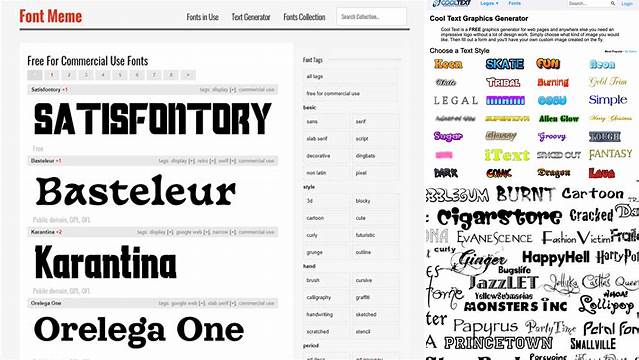
Free Font Generator: Create Cool & Unique Fonts Online
Are you looking to elevate your content with unique and stylish fonts? You've come to the right place! In today's digital world, where visual appeal is key, using the right font can make all the difference. Whether you're crafting social media posts, designing presentations, or simply want to add a personal touch to your messages, a different fonts generator can be an invaluable tool. Guys, let's dive into the world of fonts and explore how you can use a free font generator to create stunning visuals. We will walk you through everything you need to know to make your text stand out from the crowd. From understanding the basics of font selection to exploring the various features of online generators, this guide will equip you with the knowledge and resources to unleash your creativity.
Why Use a Different Fonts Generator?
In the vast ocean of online content, making your text visually appealing is crucial. A different fonts generator free is your secret weapon to achieve this. Imagine scrolling through social media β what catches your eye? It's often the content that stands out, right? Fonts play a massive role in this. A unique font can grab attention, convey emotions, and even reflect your brand's personality. Think about it, guys: a playful script font can add a touch of whimsy, while a bold, sans-serif font can project confidence and authority. A font generator empowers you to experiment with various styles, ensuring your message not only gets across but also leaves a lasting impression. The use of diverse fonts can also enhance readability. Different fonts are suitable for different contexts. For example, a clear, simple font might be best for body text, while a more decorative font can be used for headings and titles. By carefully selecting fonts, you can create a visual hierarchy that guides your reader through the content, making it easier to digest and more engaging. In short, a font generator is not just about aesthetics; it's about communication. It's about crafting a message that resonates with your audience on a visual level, making your content more memorable and impactful. So, whether you're a social media guru, a budding graphic designer, or simply someone who wants to spice up their text messages, a free font generator is a tool you can't afford to ignore. Itβs a simple yet effective way to add that extra oomph to your content and make it truly shine. Think of it as your personal font playground, where you can experiment, play, and discover the perfect font to match your unique style and message.
How to Use a Free Font Generator
Using a different fonts generator is super easy, even if you're not a tech whiz! Most online generators have a user-friendly interface that anyone can navigate. First, you'll typically find a text box where you can type or paste your message. This is where the magic begins! Once you've entered your text, the generator will display a variety of fonts that you can choose from. Some generators offer a vast selection, ranging from classic styles to funky and modern designs. You can usually scroll through the options and see your text rendered in real-time in each font. This makes it incredibly convenient to compare different styles and see which one best suits your needs. Many generators also allow you to customize the font further. You might be able to adjust the size, color, and spacing, giving you even more control over the final look. Some generators even offer special effects, such as shadows or outlines, to make your text pop. Once you've found the perfect font and customized it to your liking, the next step is usually to copy the generated text. Most generators provide a simple copy-to-clipboard button, making it a breeze to transfer your stylish text to other applications. You can then paste the text into your social media posts, documents, emails, or anywhere else you want to use it. Remember, guys, the key to using a free font generator effectively is to experiment and have fun! Try out different fonts and customizations to see what works best for your message and style. Don't be afraid to step outside your comfort zone and try something new. You might just discover your new favorite font! And the best part? It's all free and readily accessible online. So, go ahead and unleash your inner font enthusiast β the possibilities are endless!
Features to Look For in a Font Generator
When you're diving into the world of different fonts generator, there are a few key features to keep an eye out for to ensure you're getting the most out of the tool. First and foremost, variety is the spice of life, and the same goes for fonts! A good generator should offer a wide range of font styles, from classic serif and sans-serif fonts to more decorative and whimsical options. This allows you to find the perfect font to match your message and style, whether you're going for a professional, playful, or elegant look. Customization options are another crucial feature. Being able to adjust the size, color, and spacing of the font can make a big difference in how your text looks. Some generators even offer advanced customization options, such as adding shadows, outlines, or other special effects. This level of control allows you to fine-tune your text and create truly unique designs. Guys, let's not forget about the user interface! A font generator should be easy to use and navigate, even for beginners. Look for a generator with a clean and intuitive interface that allows you to quickly find the fonts you need and customize them to your liking. Real-time previews are also a huge plus. Being able to see how your text looks in different fonts as you type is incredibly helpful for making the right choice. This feature saves you time and effort by allowing you to experiment with different styles without having to copy and paste the text repeatedly. Finally, consider the output options. A good generator should allow you to easily copy the generated text to your clipboard so you can paste it into other applications. Some generators may also offer options to download the font as an image or other file format, which can be useful for certain projects. By keeping these features in mind, you can choose a font generator that meets your needs and helps you create stunning text designs with ease. So, happy font hunting!
Where to Use Your New Fonts
Now that you've generated some amazing fonts, the question is, where can you use them? The possibilities are practically endless! Social media is a fantastic place to showcase your stylish text. Use unique fonts in your Instagram captions, Twitter posts, and Facebook updates to grab attention and make your content stand out from the crowd. Think about it, guys β a catchy headline in a cool font can be the difference between someone scrolling past your post and stopping to engage. Beyond social media, you can use your new fonts in a variety of digital and print projects. If you're creating presentations, using different fonts for headings and body text can add visual interest and make your slides more engaging. For website design, incorporating unique fonts can help reinforce your brand identity and create a memorable user experience. Even something as simple as using a stylish font in your email signature can add a touch of personality and professionalism. If you're into graphic design, a font generator can be a valuable tool for creating logos, posters, and other visual materials. The ability to experiment with different fonts and customize them to your liking allows you to create designs that are truly unique and eye-catching. And let's not forget about personal projects! Whether you're designing invitations for a party, creating a scrapbook, or simply want to add some flair to your text messages, a different fonts generator free can help you express your creativity and personalize your communication. In short, anywhere you use text, you can use your new fonts! From professional applications to personal projects, the ability to create stylish and unique text is a valuable asset. So, go ahead and unleash your font-astic creativity β the world is your canvas!
Choosing the right font can feel like a daunting task, especially with so many options available. But don't worry, guys, I'm here to give you some tips to help you navigate the font jungle! First, consider the context in which you'll be using the font. Is it for a professional document, a social media post, or a personal project? The tone and style of the font should match the purpose of the text. For example, a formal document might call for a classic serif font, while a social media post might benefit from a more playful or modern font. Readability is another key factor to consider. While a fancy font might look cool, it's no good if people can't easily read it. Choose fonts that are clear and legible, especially for body text. Save the more decorative fonts for headings and titles, where they can make a statement without sacrificing readability. Think about the message you want to convey. Fonts have personalities, and they can evoke different emotions and associations. A bold, sans-serif font might convey confidence and authority, while a script font might suggest elegance and sophistication. Choose a font that aligns with the message you're trying to communicate. Don't be afraid to experiment, guys! Try out different fonts and see what works best for your project. Use a different fonts generator to preview your text in various styles and get a feel for how they look. It's all about finding the perfect fit. Consider your brand identity. If you're using fonts for business purposes, it's important to choose fonts that reflect your brand's personality and style. Consistency is key, so stick to a limited number of fonts that you use across all your materials. Finally, don't overdo it. Using too many different fonts in one project can look cluttered and unprofessional. Stick to a maximum of two or three fonts and use them strategically to create visual interest. By keeping these tips in mind, you can confidently choose the right font for any project and create text that is both visually appealing and effective. Happy font choosing!
So, there you have it, guys! A different fonts generator free is a fantastic tool for adding style and personality to your text. Whether you're looking to jazz up your social media posts, create eye-catching designs, or simply want to express your creativity, a font generator can help you achieve your goals. We've covered why using a font generator is beneficial, how to use one effectively, the features to look for, where to use your new fonts, and tips for choosing the right font. Now it's time to put your newfound knowledge into action! Explore the world of fonts, experiment with different styles, and discover the perfect fonts to match your unique vision. Remember, guys, the key is to have fun and let your creativity shine! With a free font generator at your fingertips, the possibilities are endless. So, go ahead and unleash your inner font enthusiast β the world is waiting to see your stylish text! And remember, the right font can make all the difference in how your message is perceived. It's not just about aesthetics; it's about communication. By choosing fonts thoughtfully, you can create text that not only looks great but also effectively conveys your message and connects with your audience. So, happy font generating, and may your text always be stylish and impactful!